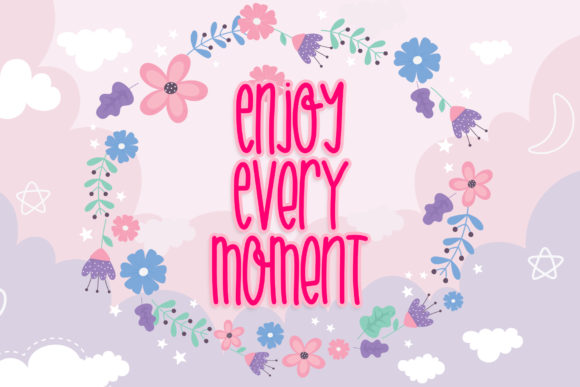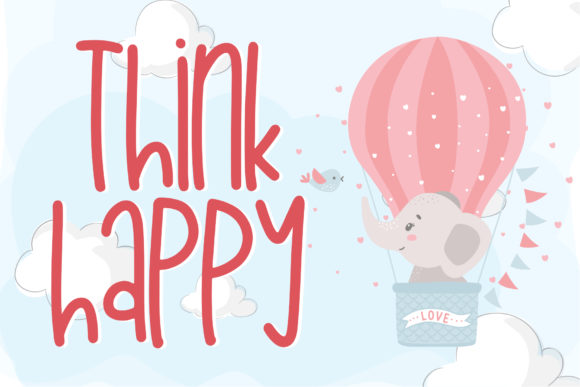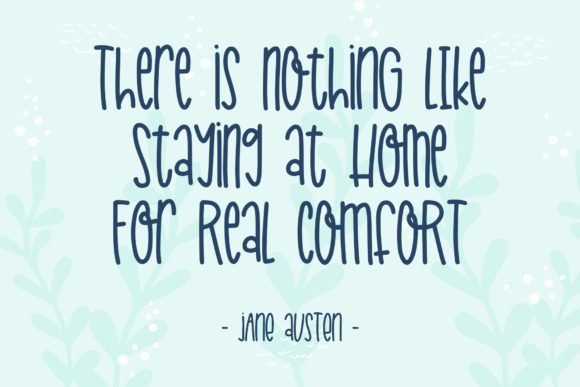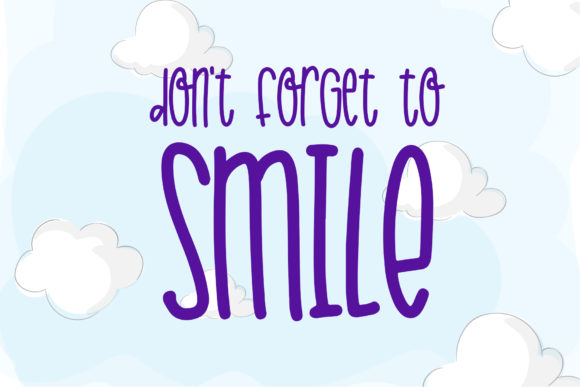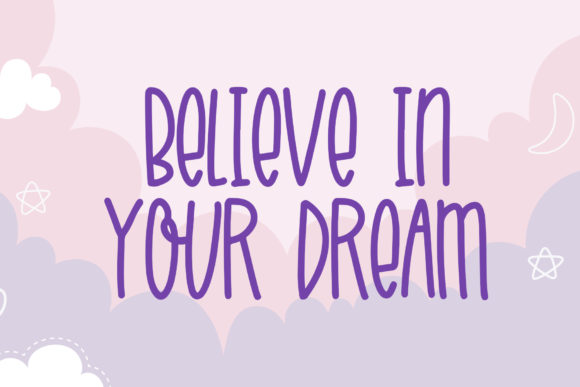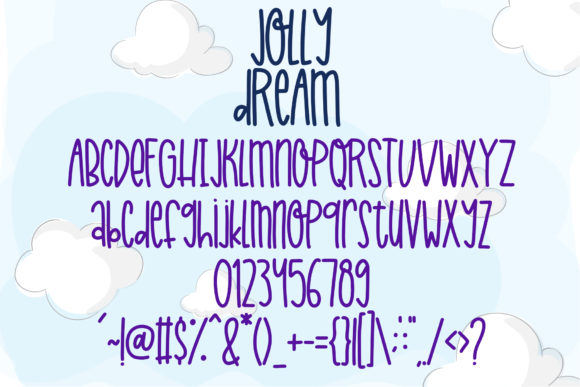
Introduction to Jolly Dream Font
Have you ever stumbled upon a font that perfectly captures the essence of your creative vision? For designers and artists, this moment is pure magic. It’s the moment when all the pieces fall into place, and your project transforms into a stunning work of art. For me, that moment came when I discovered the Jolly Dream Font – a cute and casual handwritten font that exudes an incredibly friendly feel.
Whether you’re a seasoned designer or a DIY enthusiast, the Jolly Dream Font is a game-changer. Its versatility makes it an ideal design resource for a wide range of creative projects, from Instagram-worthy graphics to calligraphy scripts for your next DIY masterpiece. With its transparent background and high-quality design, this font is perfect for adding a personal touch to your designs.
What sets the Jolly Dream Font apart is its value for designers. Not only is it free to download, but it’s also incredibly easy to use, making it a valuable addition to any design arsenal. In this article, we’ll delve into the world of the Jolly Dream Font, exploring its features and benefits, and showcasing how it can elevate your creative projects to the next level.
Key Features of Jolly Dream Font
- High-quality, free font suitable for various creative projects, including designs, graphics, and digital art.
- Comes with a transparent background, allowing for seamless integration into different design resources and backgrounds.
- Unique characteristics include a playful, whimsical design and a wide range of letterforms, making it an excellent choice for designers seeking a distinctive look.
Honest Review: Jolly Dream Font
I recently stumbled upon the Jolly Dream Font while searching for a free design resource for a creative project. I was immediately drawn to its playful and whimsical feel, making it perfect for children’s book illustrations or festive advertisements.
- What works well: ✨ The font is highly legible, even at small sizes, and has a seamless transparent background, making it easy to integrate with any design.
- What works well: ✨ The Jolly Dream Font comes in a variety of weights and styles, giving designers plenty of options to experiment with and add visual interest to their projects.
While the Jolly Dream Font is a high-quality design resource, there are a few limitations to be aware of:
Overall, I’m impressed with the Jolly Dream Font’s high-quality design and versatility. It’s a great addition to any designer’s toolkit, especially for those working on creative projects that require a touch of whimsy and fun.
The Jolly Dream Font is a high-quality, free download design resource perfect for creative projects. With its transparent background, this font is ideal for adding a touch of whimsy and fun to your designs.
For the best results, use the Jolly Dream Font in combination with other design elements, such as graphics and illustrations. Experiment with different font sizes, colors, and styles to add depth and interest to your designs.
The Jolly Dream Font is perfect for a variety of creative projects, including children’s books, party invitations, and social media graphics. Its playful and whimsical style makes it ideal for designs that require a touch of fun and personality.